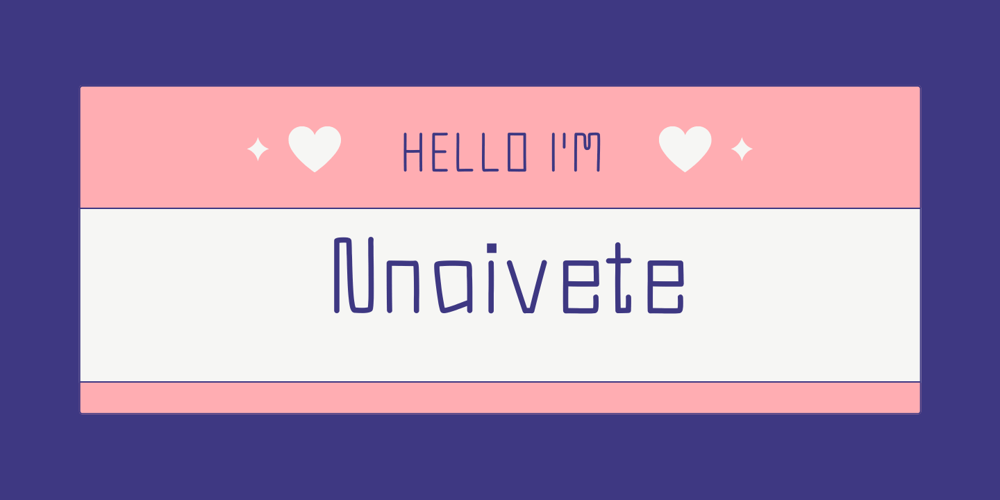
Nnaivete Font Family was designed by sirikamon chaiphom and published by Aomam. Nnaivete contains 1 styles and family package options. Nnaivete is a distinctive typeface. It has a form that conveys consistency and solidity while also evoking a feeling of fun. Learning about geometric forms as a student served as the designer’s inspiration for the typeface Nnaivete. Consequently, this font’s layout is mostly focused on squares.